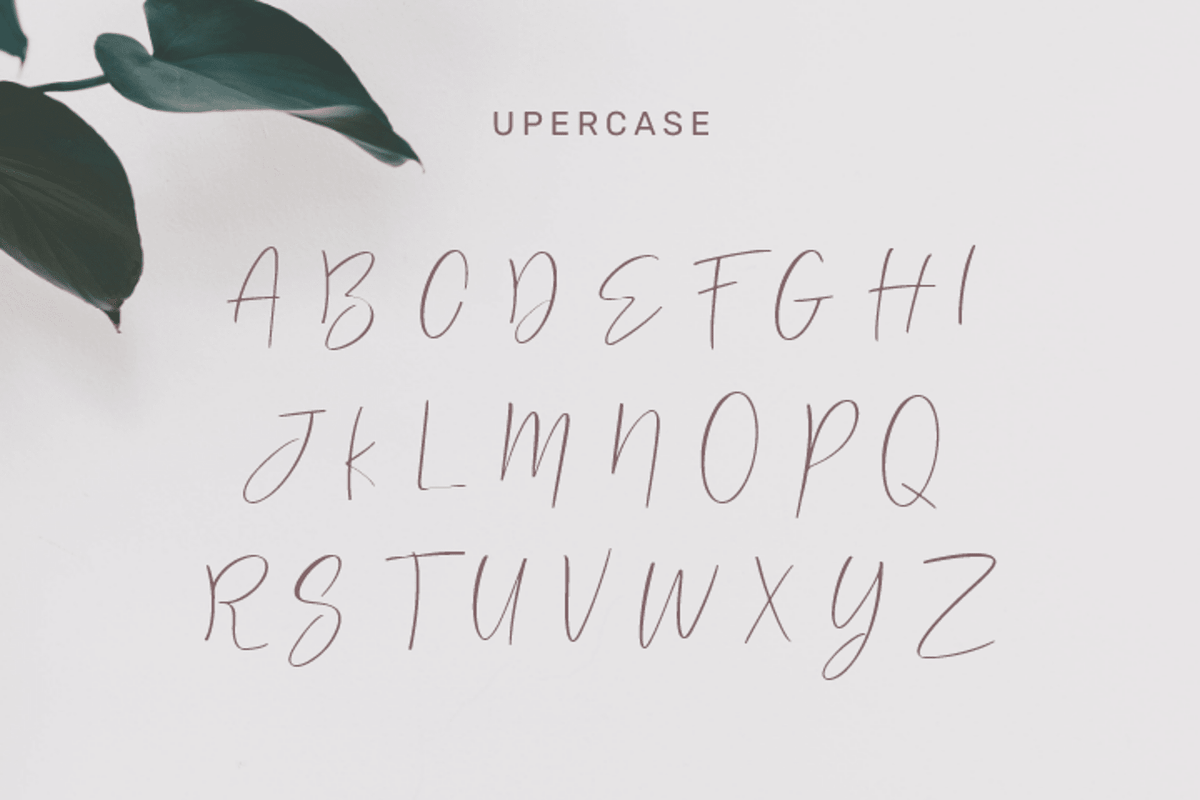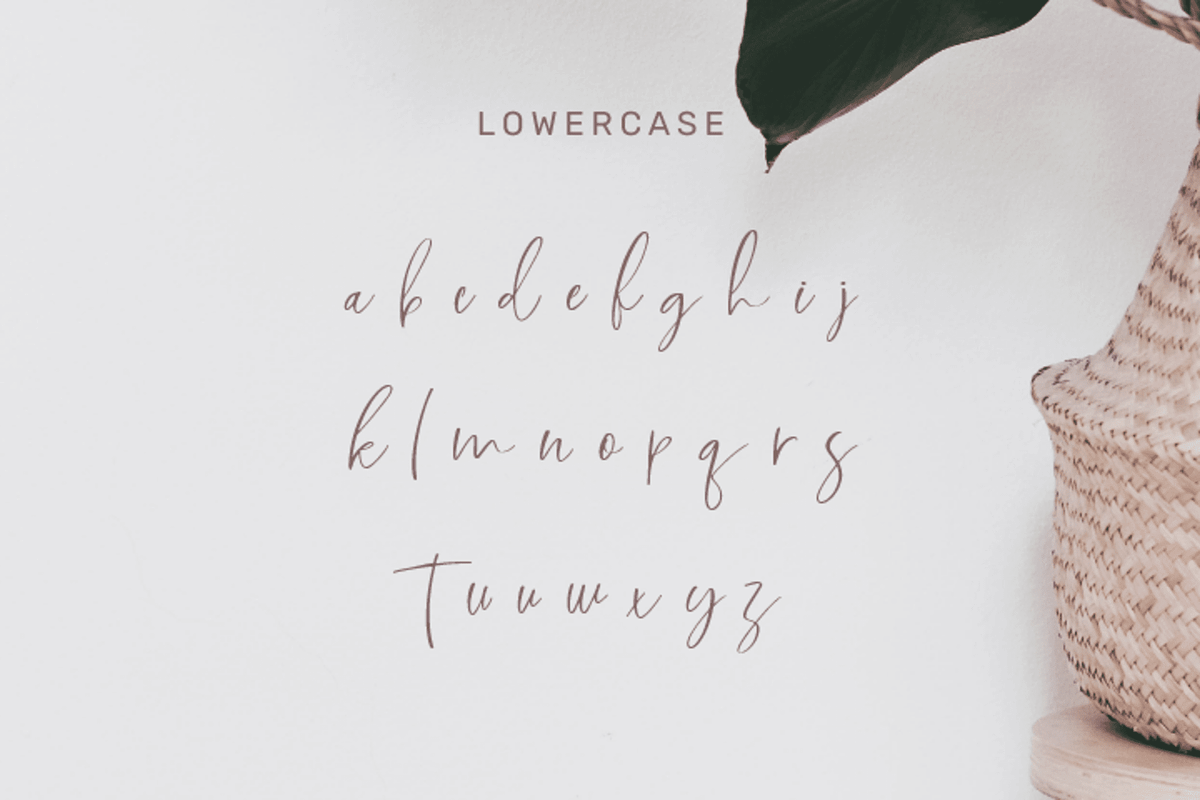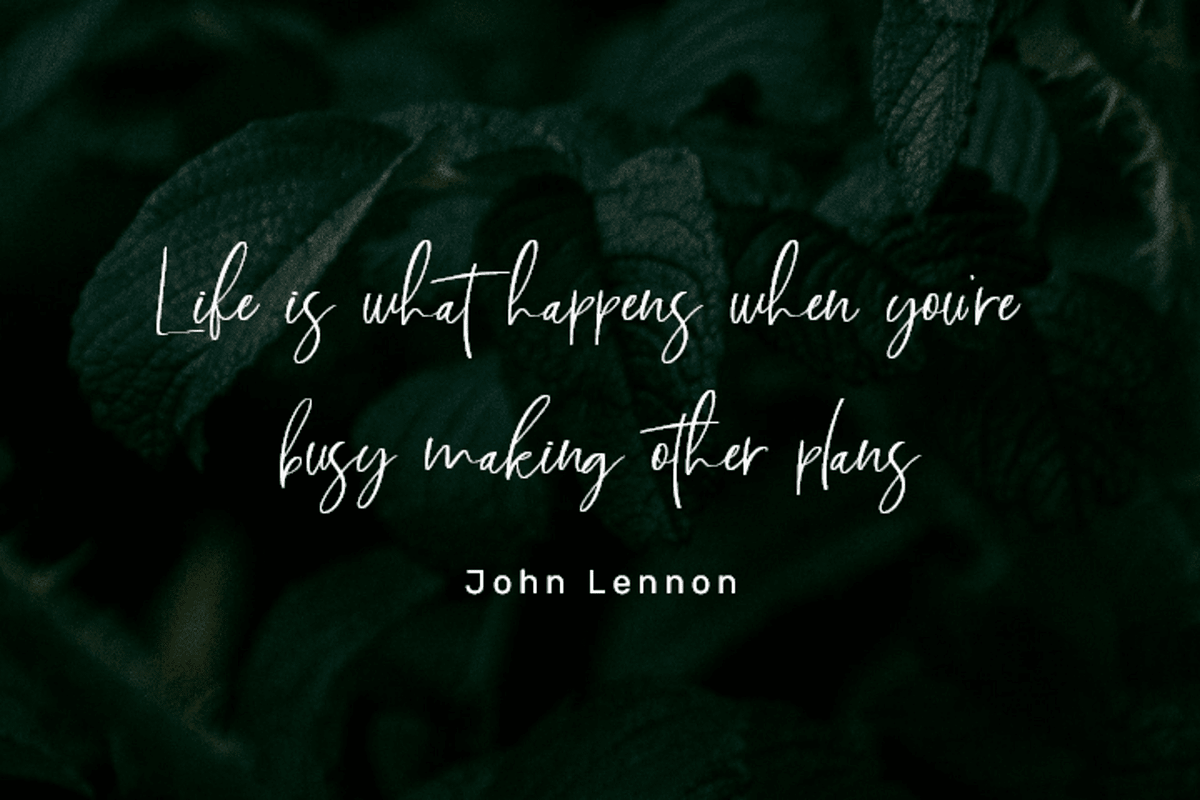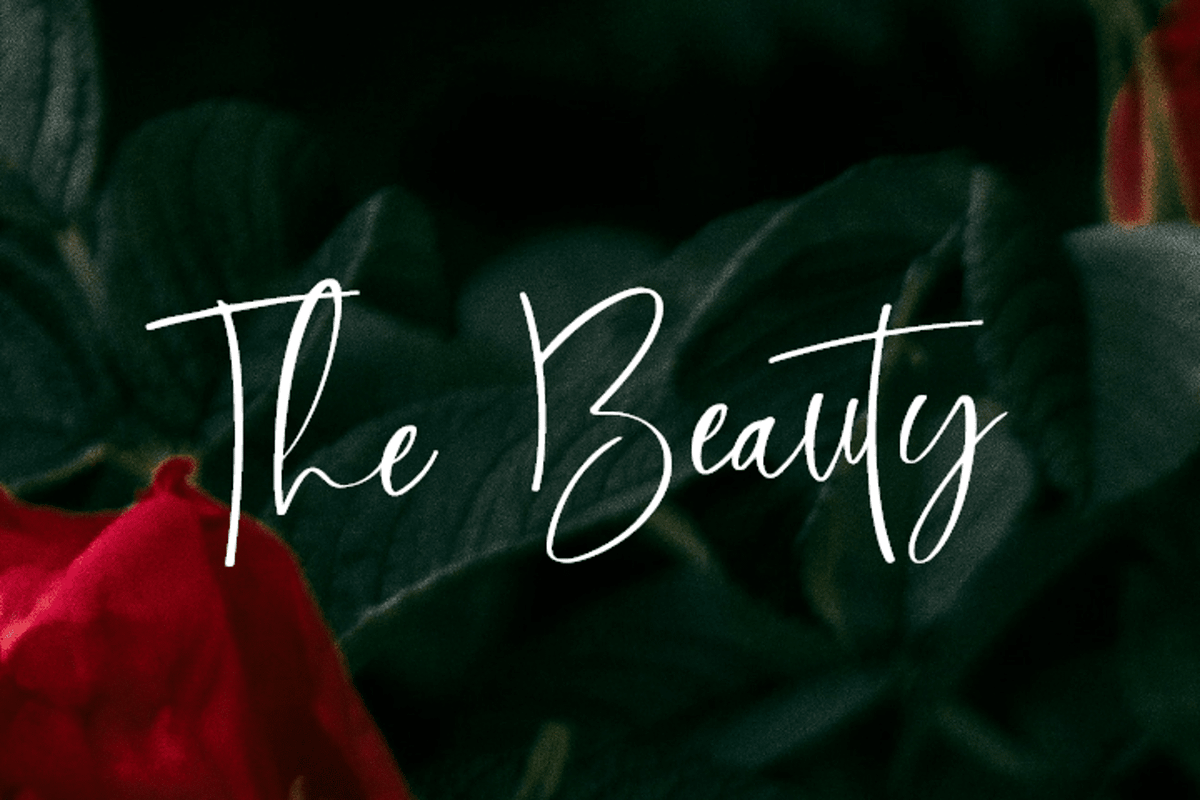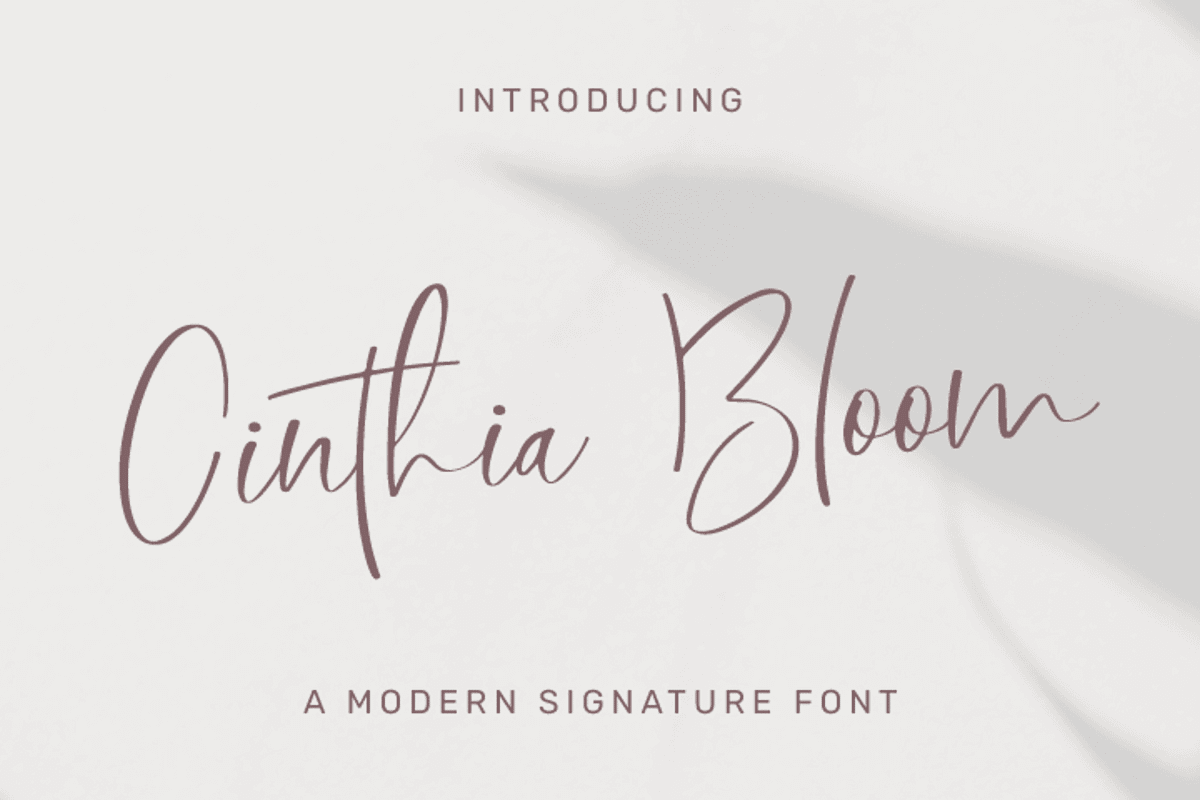
Cinthia Bloom: Elegant Font
Cinthia Bloom: Elegant Handwriting Font
Introducing Cinthia Bloom, a beautiful and elegant handwriting font. This font features an organic, flowing style and a variety of unique character forms, perfect for invitations, branding, and more.
Elegant Handwriting Style: Cinthia Bloom offers a natural, flowing handwriting style that adds elegance and sophistication to any project.
Wide Range of Applications: Ideal for invitations, branding, logos, and more. Add a personal touch to your designs with Cinthia Bloom.
Variety of Characters: Comes with a variety of unique character forms, adding depth and versatility to your design projects.
High Quality: Meticulously crafted to ensure high readability and beautiful aesthetics.